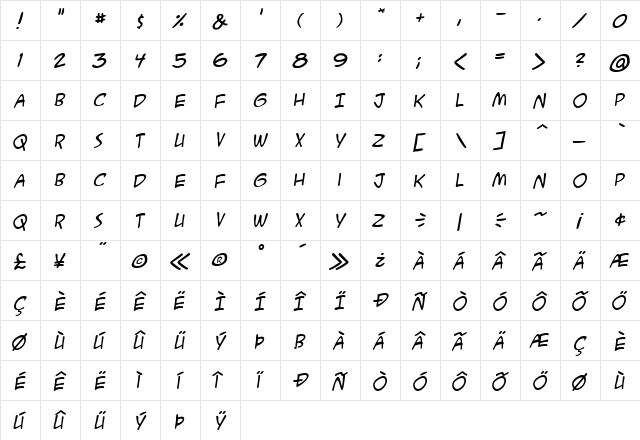
ACME Secret Agent BB Italic
Design Context for ACME Secret Agent BB Typeface
ACME Secret Agent BB is a composed and adaptable typeface that performs quietly and consistently across a wide range of design contexts. The slanted form adds forward momentum and visual energy.
Pro Tip: Try ACME Secret Agent BB for annotation and caption copy alongside an upright companion — the contrast in angle creates a dynamic but ordered typographic system.